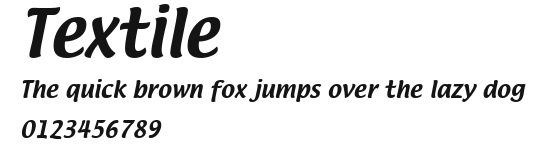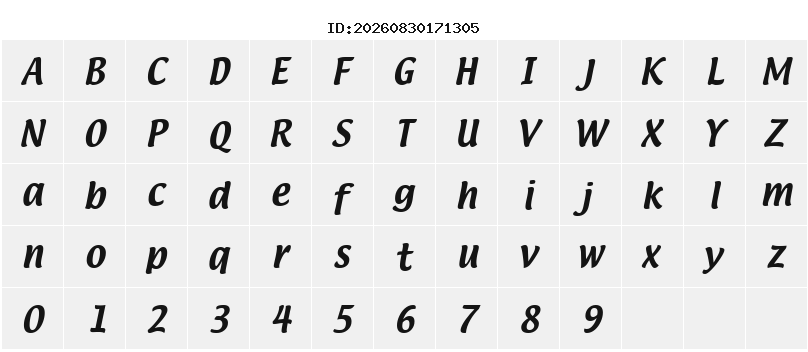
Textile Preview
• Font Name: Textile
• Full Font Name: Textile
• PostScript Name: Textile
About Textile.ttf
Textile.ttf is a modern, elegant sans-serif font designed for ultimate readability and visual harmony. Perfect for branding, headlines, web design, and print materials.